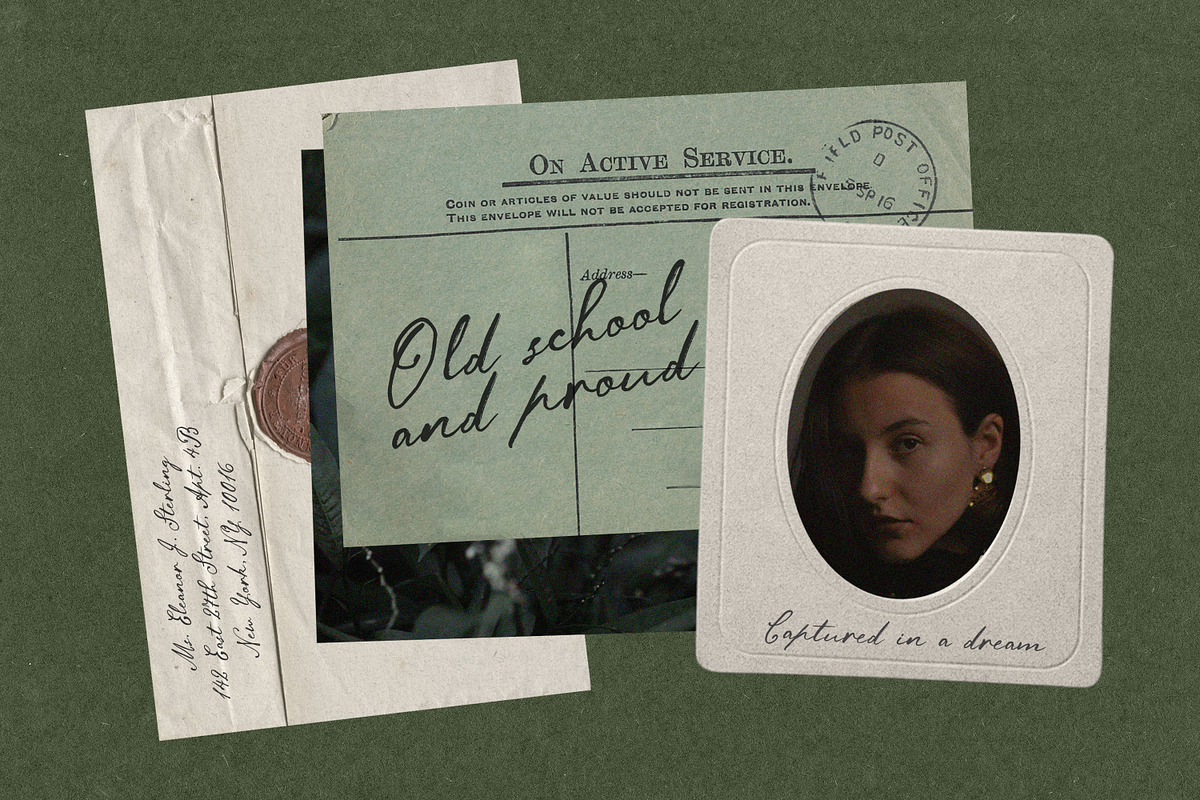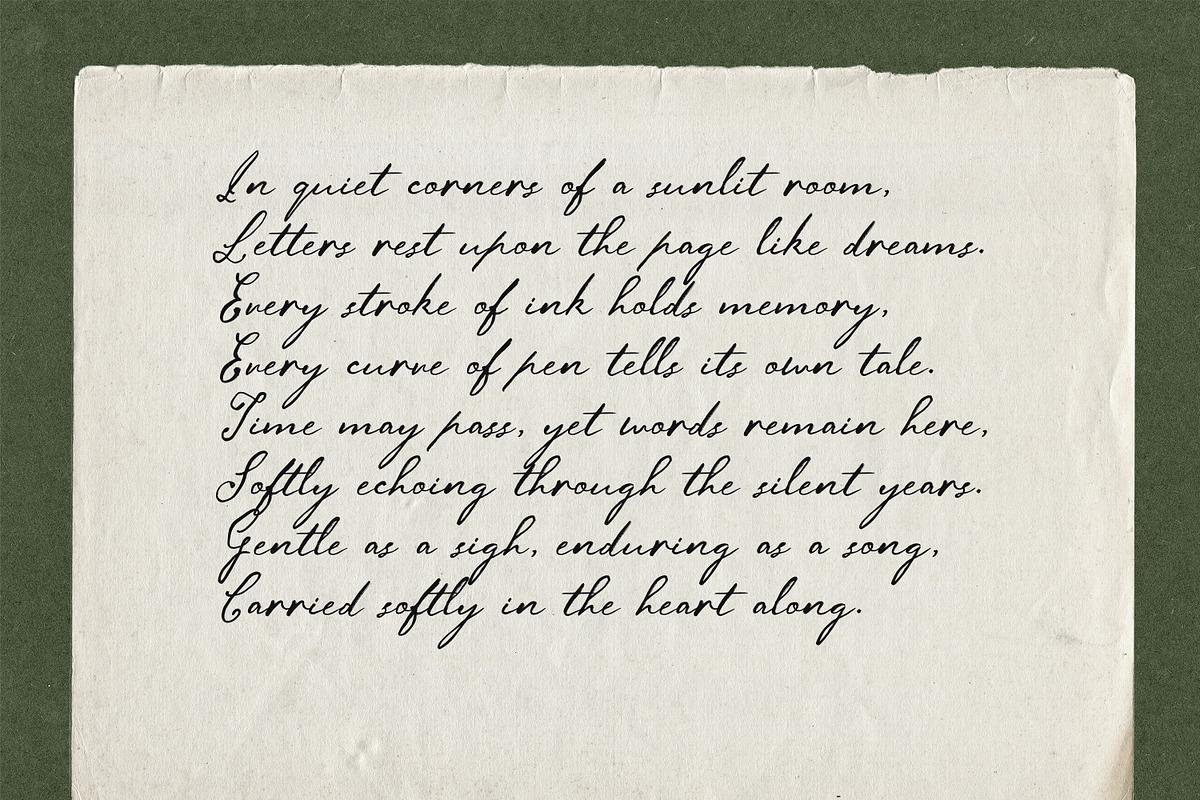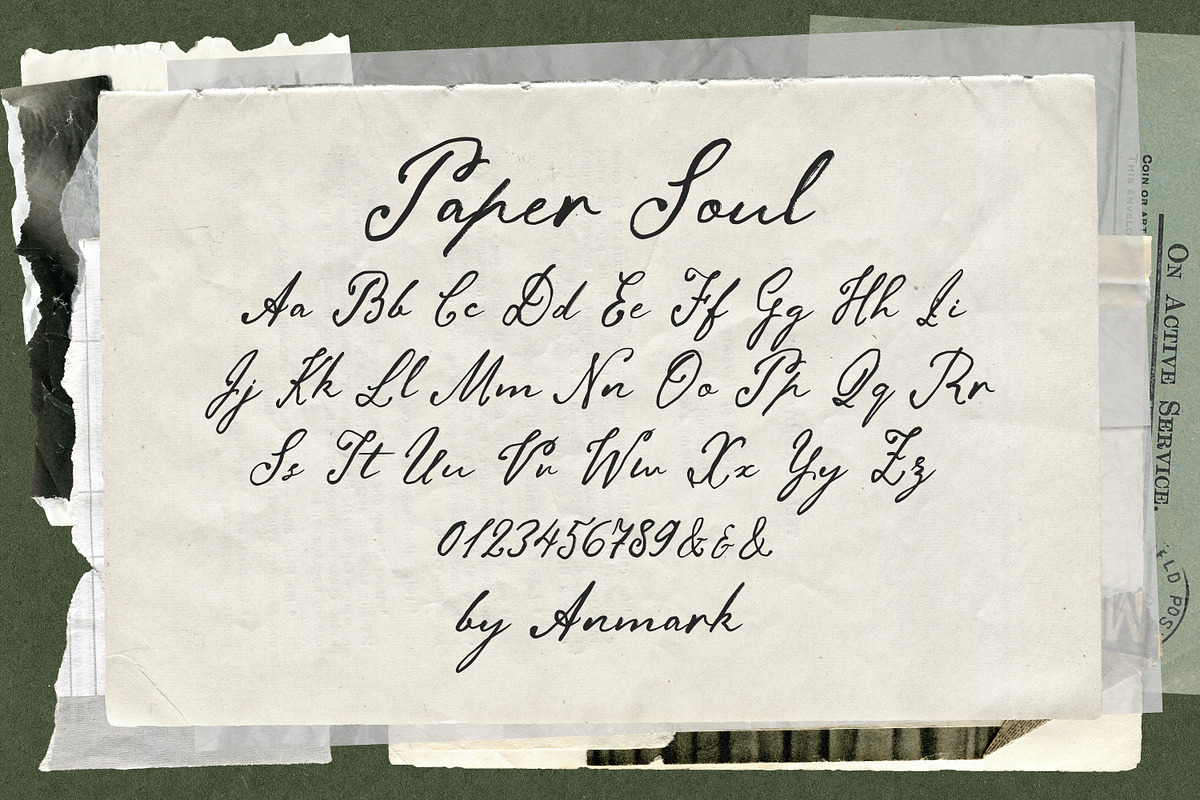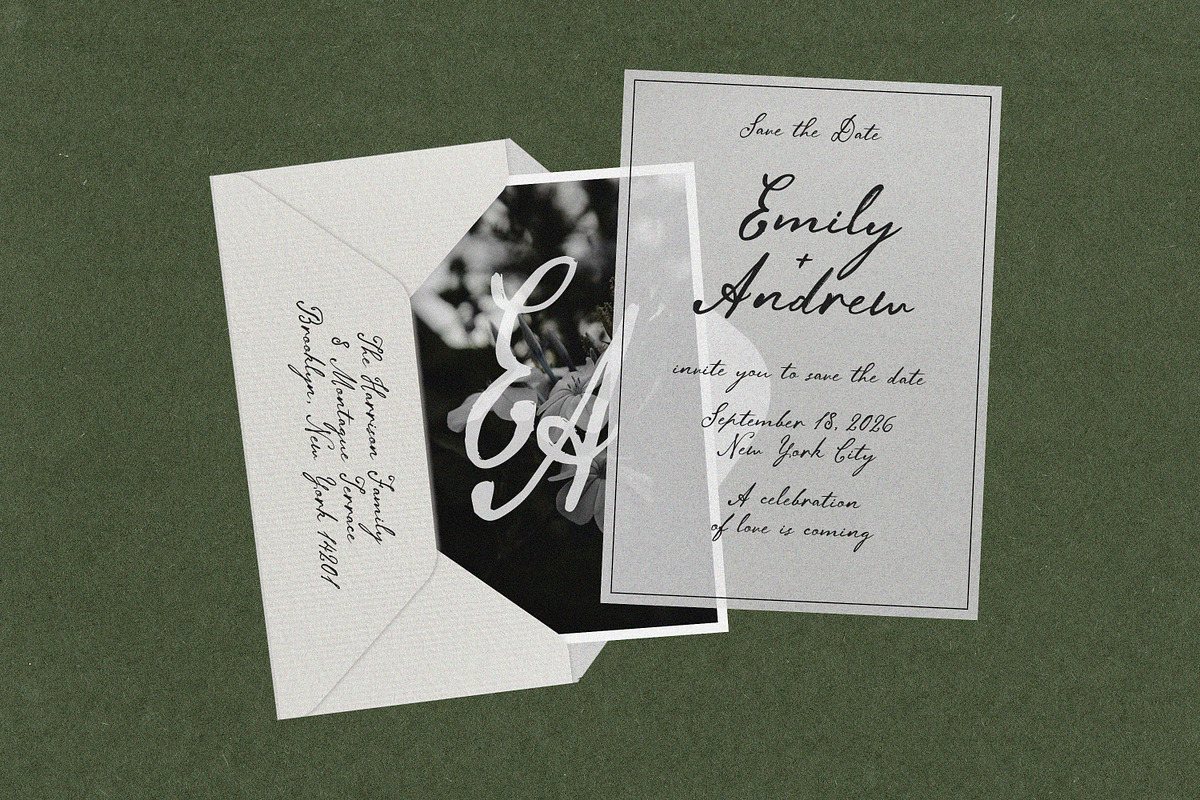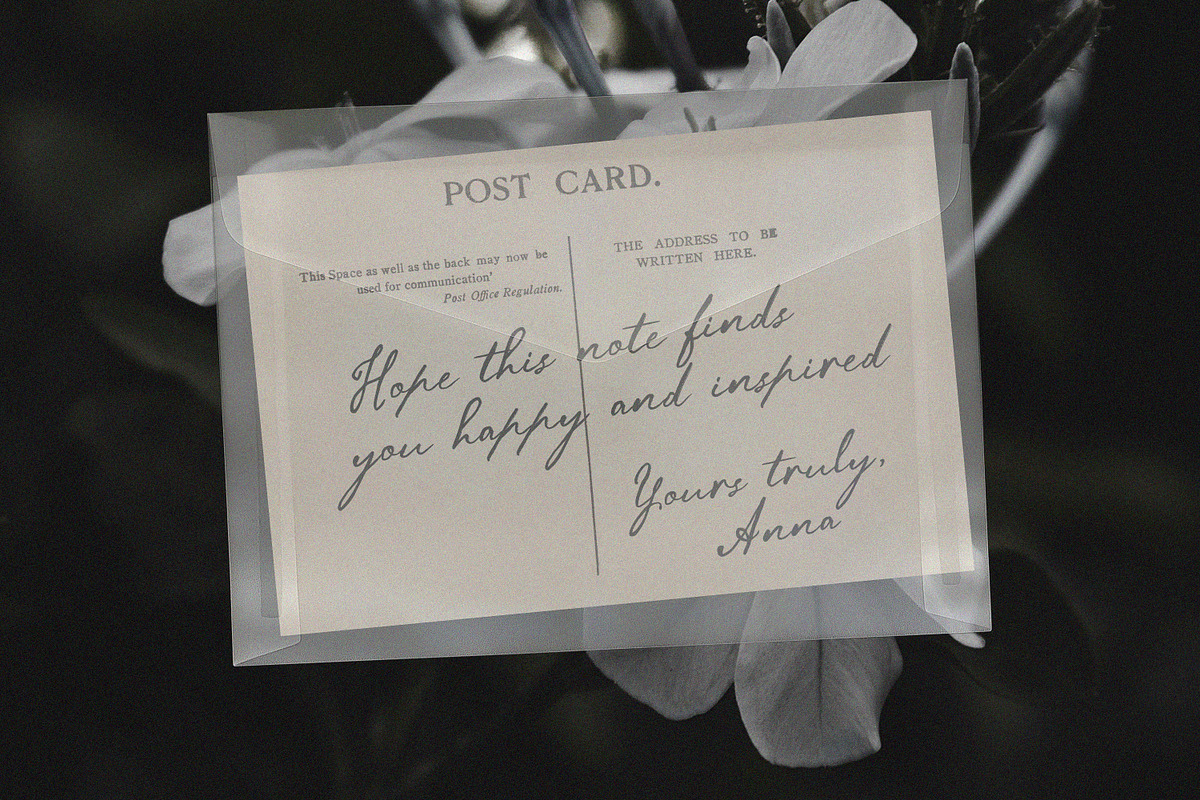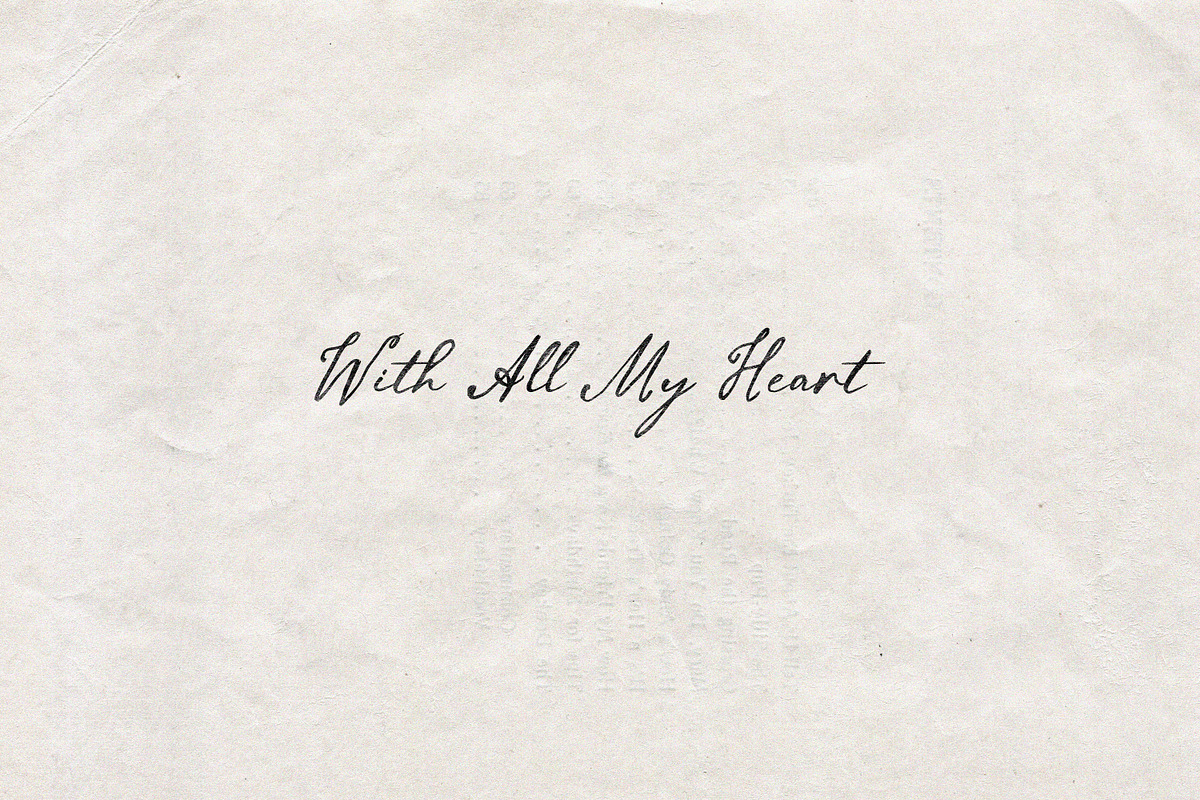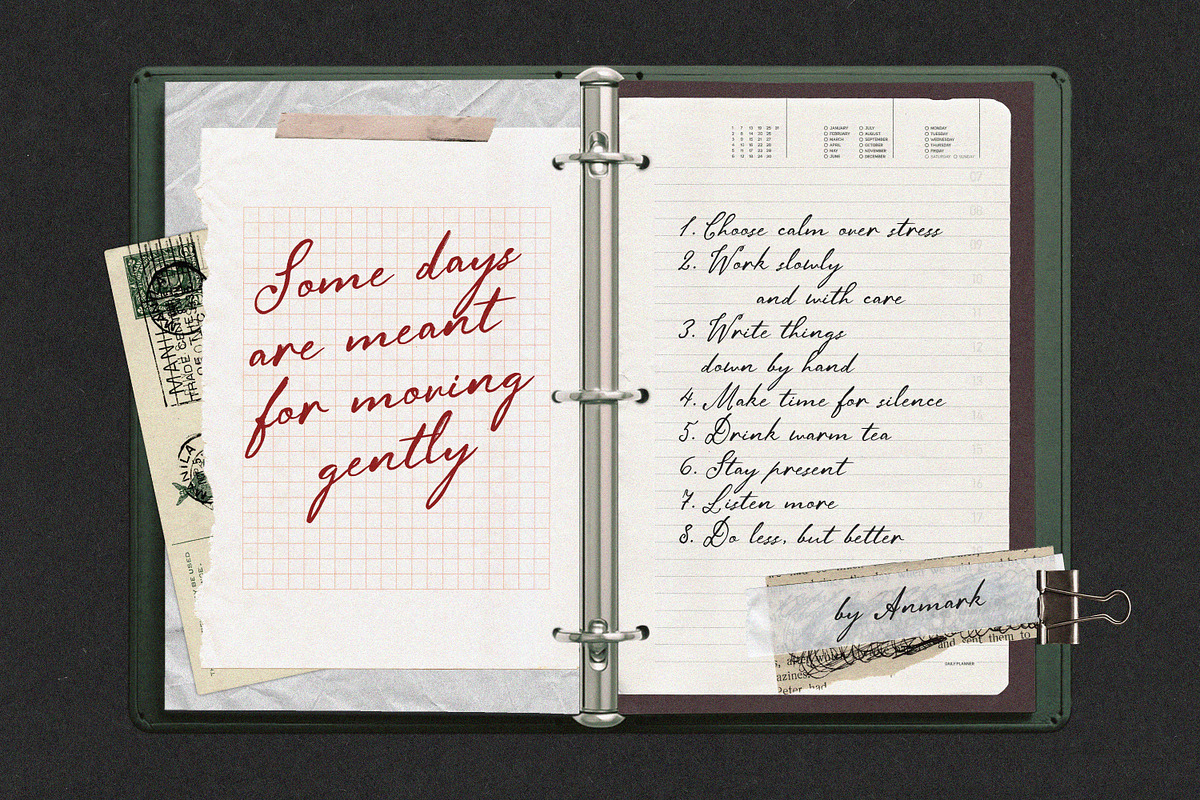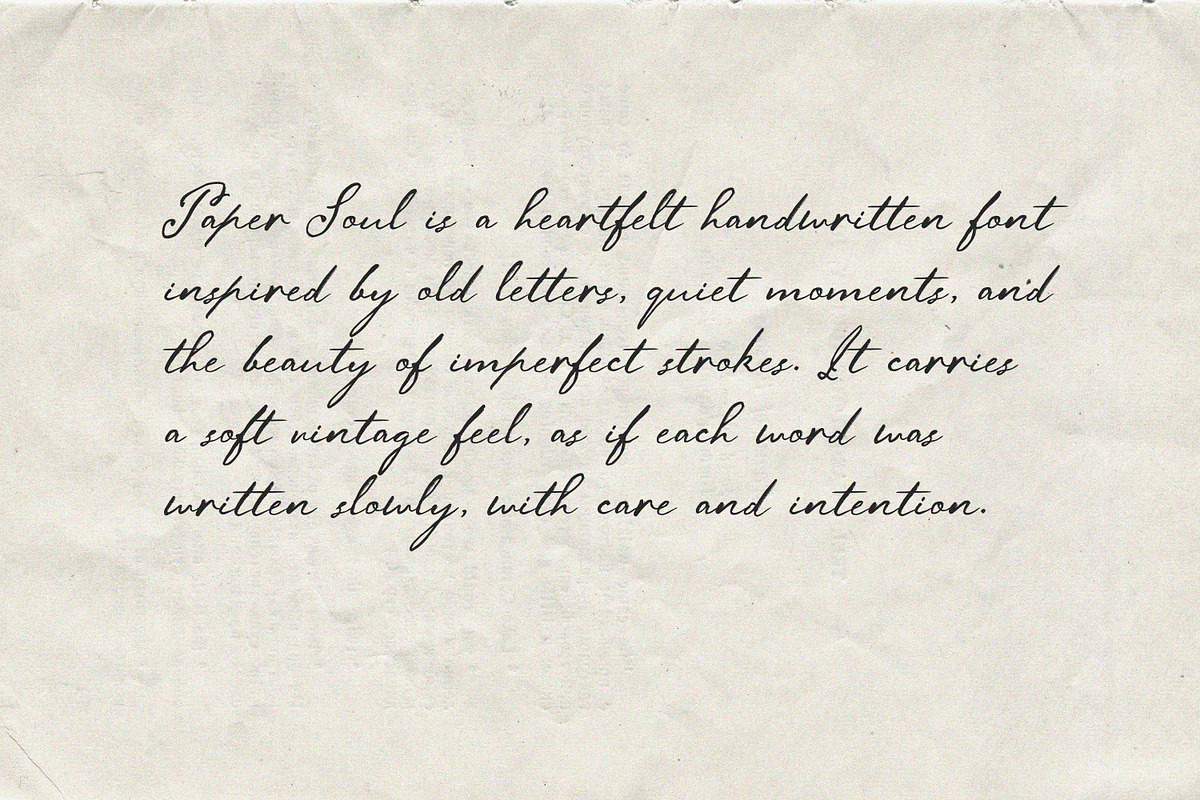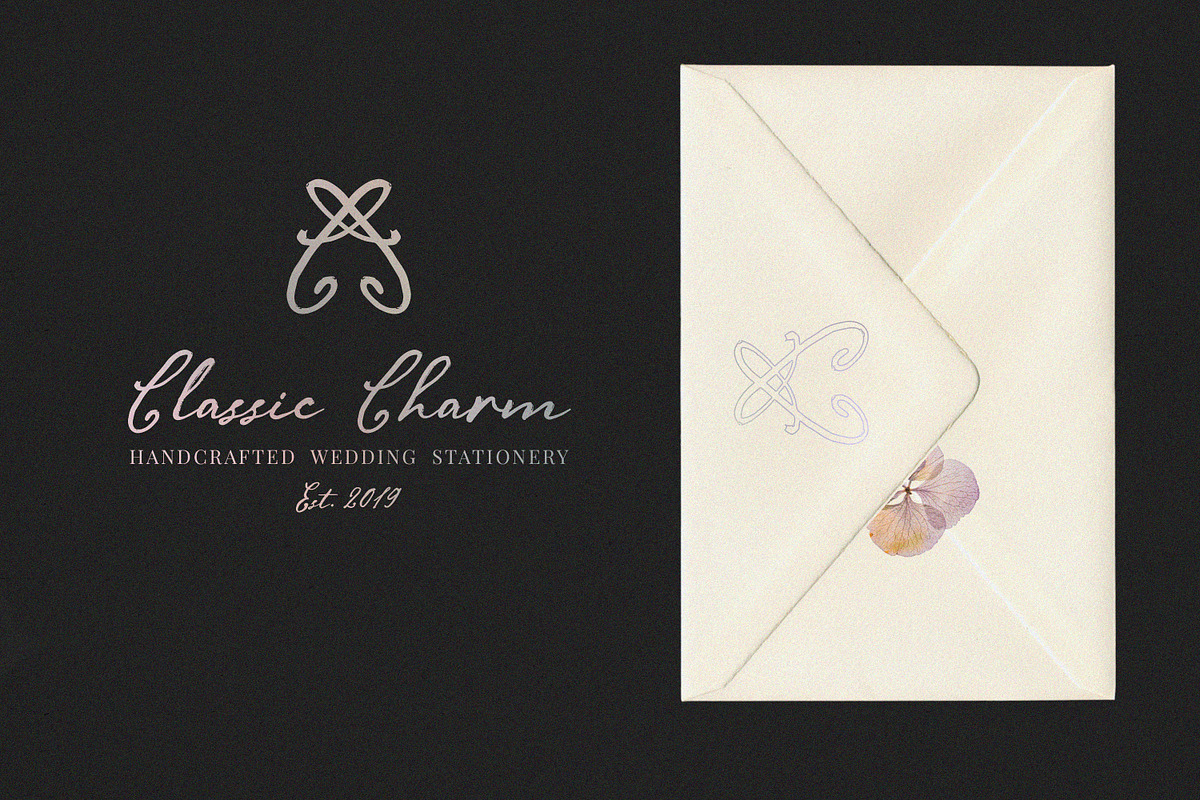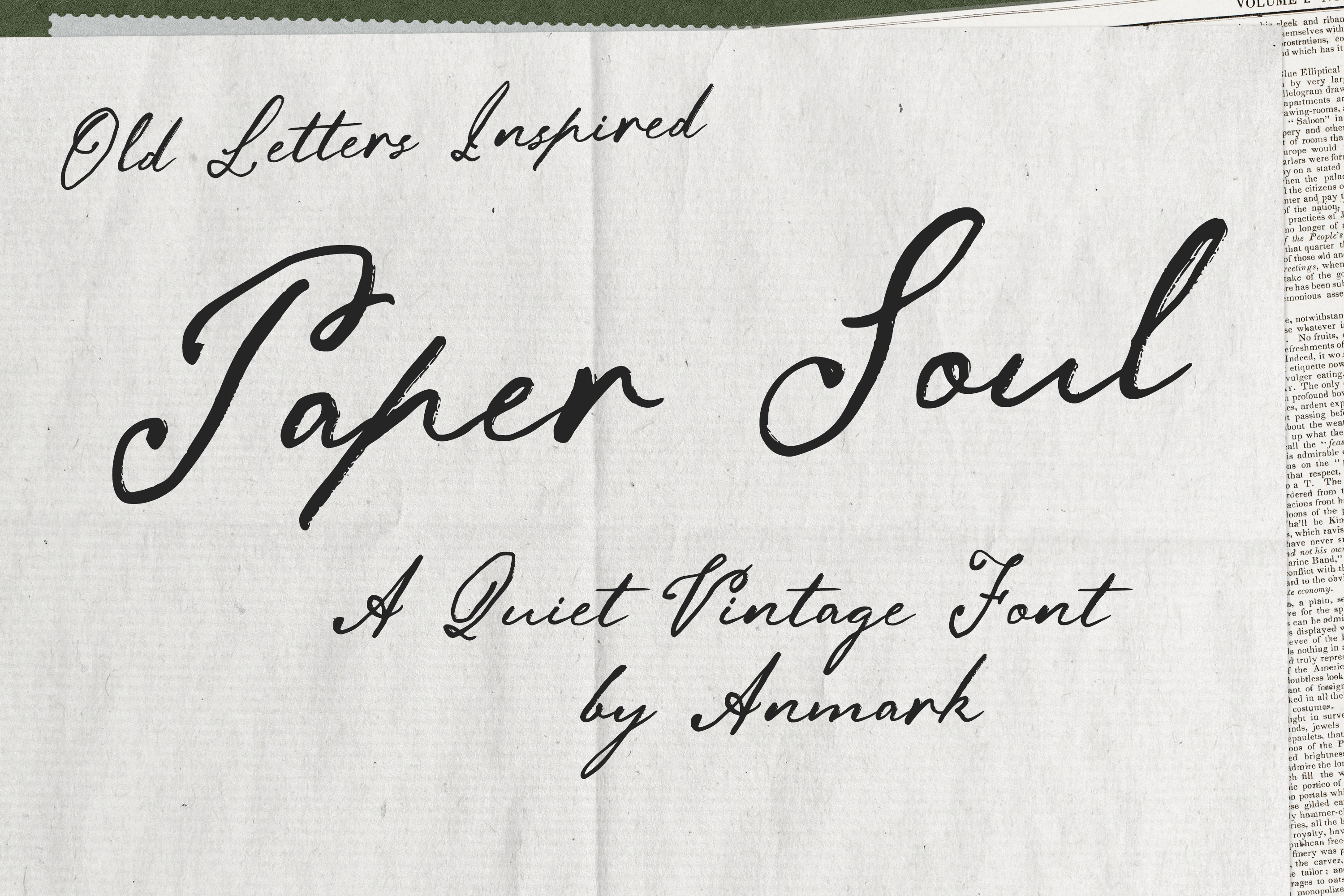
Paper Soul is a vintage-inspired handwritten script font, reminiscent of old letters and carefully penned notes. Its delicate, slightly irregular strokes create the feeling of ink on paper, giving every word a timeless, personal touch. With a moderate slant and elegant, elongated letterforms, this font brings warmth and sophistication to any design.
Perfect for wedding invitations, stationery, greeting cards, logos, monograms, quotes, and romantic or nostalgic projects, Paper Soul adds a quiet, thoughtful charm to your creative work. Its textured, hand-crafted appearance evokes the beauty of the past while remaining easy to read and versatile.
This font is beautiful. I love it so much — it is the perfect script font. It is also strangely versatile in a way I can't describe — it always looks good. It elevates everything you use it on!
Love this police ! The handwritten style is gorgeous. I'd have appreciated to get the French accents in the police (é, è, à, ^, ù, ç), it would have been a huge ++ for me.